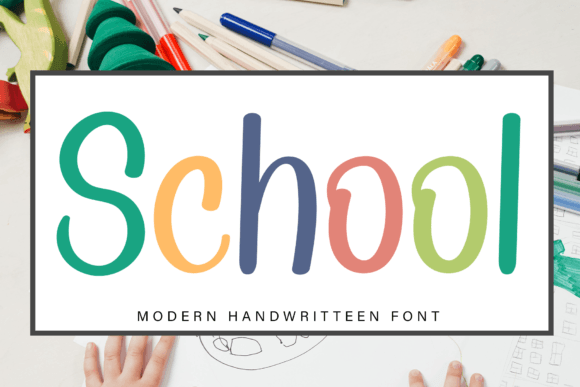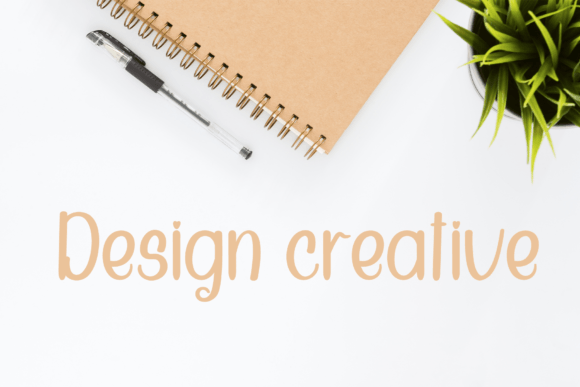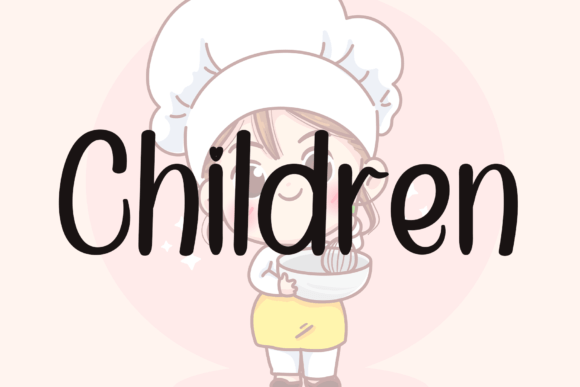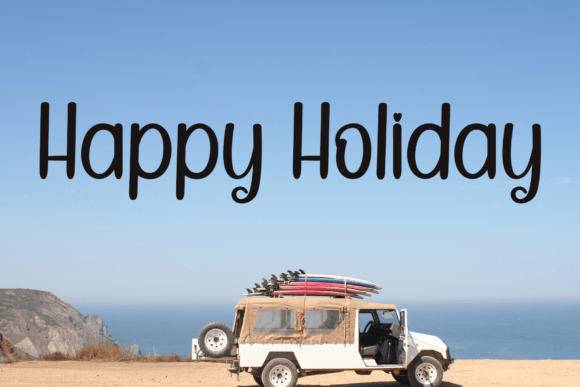
**School Font: Lovely and Sweet Handwritten Script**
Introducing “School,” a font that embodies loveliness and sweetness in its handwritten script. This gentle font is designed to look gorgeous on a variety of design ideas, adding a joyful and romantic touch to each of your projects.
**Gentle and Sweet Aesthetics:**
School encapsulates a gentle and sweet aesthetic in every curve and stroke. The handwritten script imparts a sense of warmth and friendliness, making it a perfect choice for projects that aim to evoke joy and romance. Whether you’re working on invitations, cards, or any creative endeavor, School brings a delightful charm to your designs.
**Versatile for Various Designs:**
The versatility of School shines through, making it suitable for a range of design ideas. Whether it’s a school-related project, a romantic event, or any other creative venture, School adapts seamlessly, adding an extra layer of personality and sweetness to your visual expressions.
**Joyful and Romantic Touch:**
The font is crafted to bring a joyful and romantic touch to your projects. The fluidity of the script and the sweetness in its design create an inviting atmosphere, making your designs not just visually appealing but emotionally resonant.
**Ideal for Various Projects:**
School is more than just a font; it’s an ideal companion for various projects. From school-related materials to romantic invitations, this font adds a unique character and charm that elevates the overall aesthetics of your designs.
**Transform Your Projects:**
Let School be the font that transforms your projects into delightful and sweet expressions. Whether you’re aiming for a playful vibe or a romantic feel, School is the script that whispers joy and sweetness, creating designs that leave a lasting impression.
Choose School for a lovely and sweet handwritten script that adds a touch of warmth and charm to your creative endeavors. Let your projects become a canvas for the joyful and romantic spirit of School, turning every design into a delightful experience.